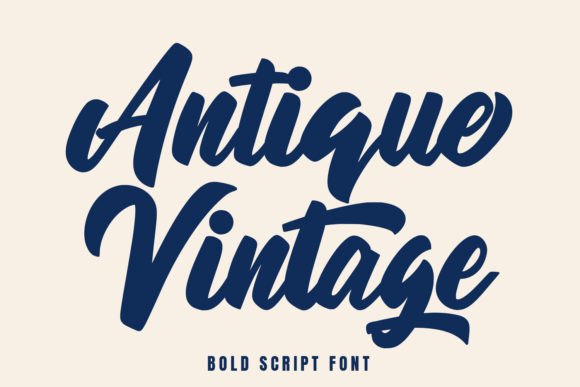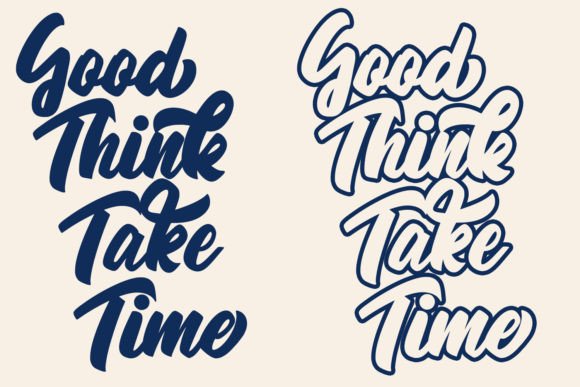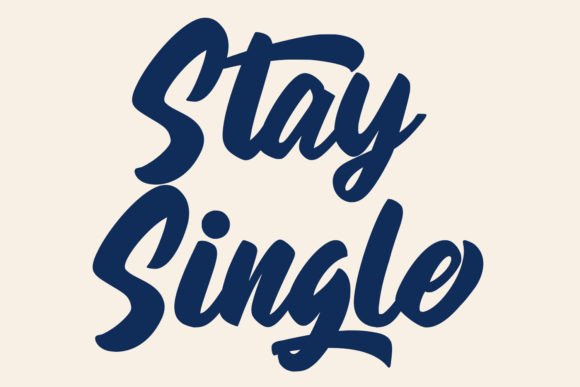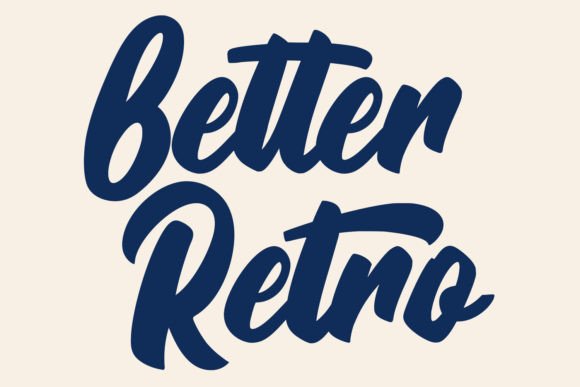
Antique Vintage Font
About the Antique Vintage Font
Elevate your designs with Antique Vintage Font, a font that combines sophistication with readability. Antique Vintage is a brush script font that features thick and prominent strokes, giving it a bold and impactful appearance. The letters are usually interconnected, creating a flowing and handwritten look.
Its bold and expressive nature makes Antique Vintage ideal for headlines, short slogans, and branding elements where a strong visual impact is desired. It works particularly well on posters, packaging for premium products, and in social media graphics. However, its highly decorative style is unsuitable for body text or UI elements requiring high readability. Long blocks of text set in this font would be difficult to read.
Antique Vintage possesses a strong, slightly rebellious personality. To balance this, consider pairing it with a clean sans-serif like Helvetica Neue for body copy or a geometric sans-serif for a more modern feel. Alternatively, a classic serif like Garamond could provide a sophisticated counterpoint.
For a softer contrast, a delicate script font could complement Antique Vintage’s boldness, although careful consideration of kerning and letter spacing would be essential to avoid visual clutter. Pairing choices should prioritize readability and maintain a cohesive overall design.
Antique Vintage Font Usage Examples
Antique Vintage Font Example